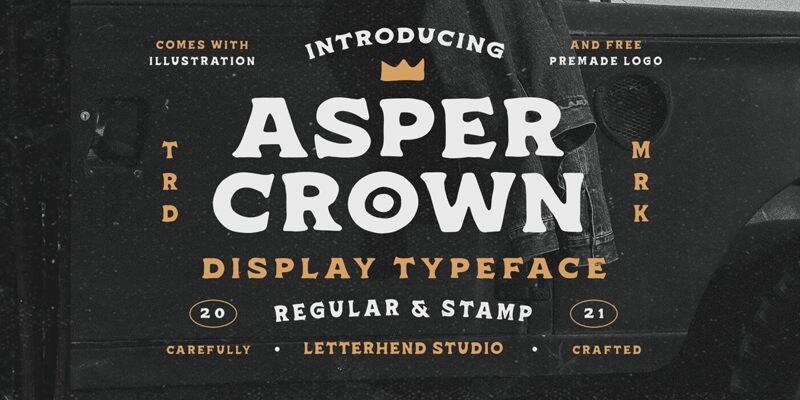
Asper Crown Stamp is a retro eroded display font created by Septianto Nugroho. Its bold and wide letterforms lend itself to projects requiring a bit of nostalgia, such as vintage movie posters, product labels, logo designs, and more. It offers an edgy feel with its distressed letterforms that stand out from the crowd. Bring a unique twist to your design project using Asper Crown Stamp!